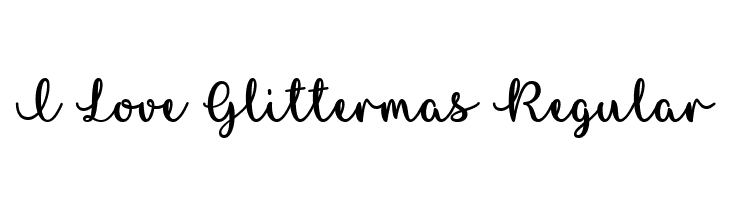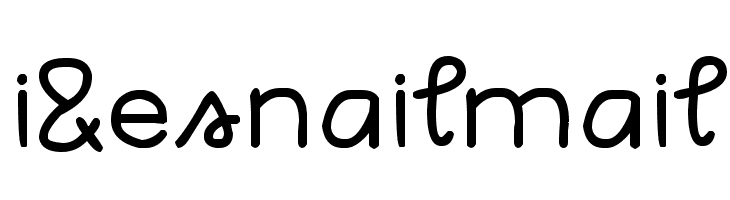
A playful, whimsical script font with a handwritten aesthetic.
( Southype - Rodrigo Gonzalez - www.southype.com )
A whimsical font with characters enclosed in heart shapes, ideal for romantic themes.
( Font by Jonathan Harris - www.tattoowoo.com )
A whimsical, decorative font with playful swirls and heart motifs.
( José Melendez )
A playful, heart-embellished handwritten font with a whimsical and romantic style.
( José Melendez )
A playful, heart-themed decorative font with bold, rounded characters.
A bold, heart-themed font with a playful and romantic style.
A playful, heart-themed font with bold, italicized strokes.
A whimsical, heart-themed font with smooth, flowing strokes and medium weight.